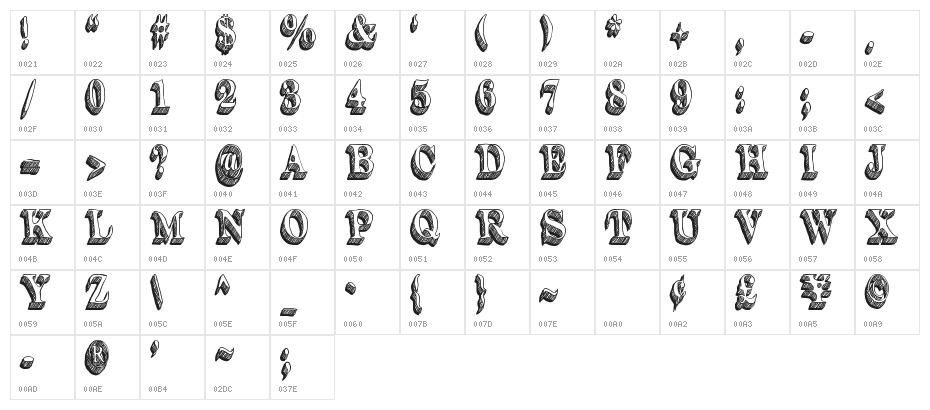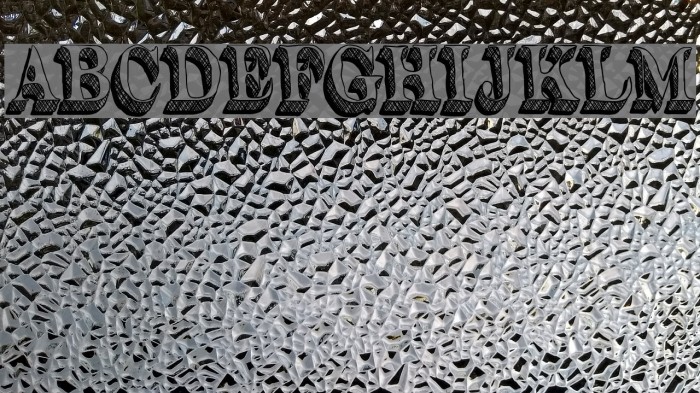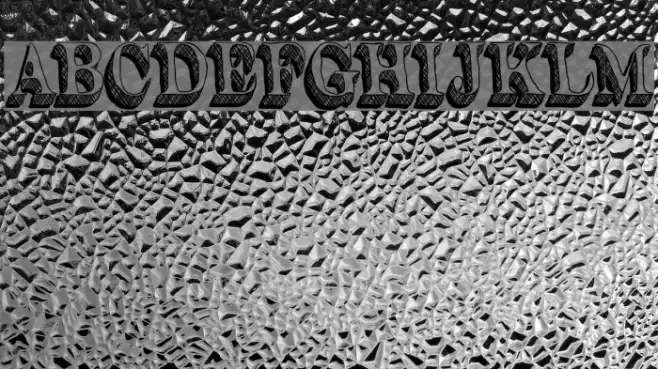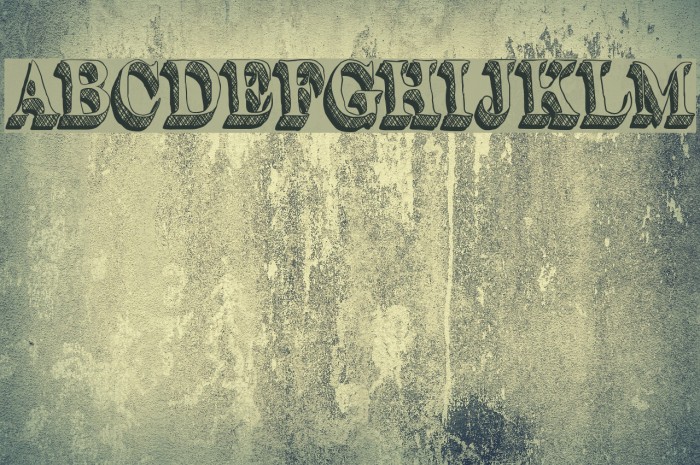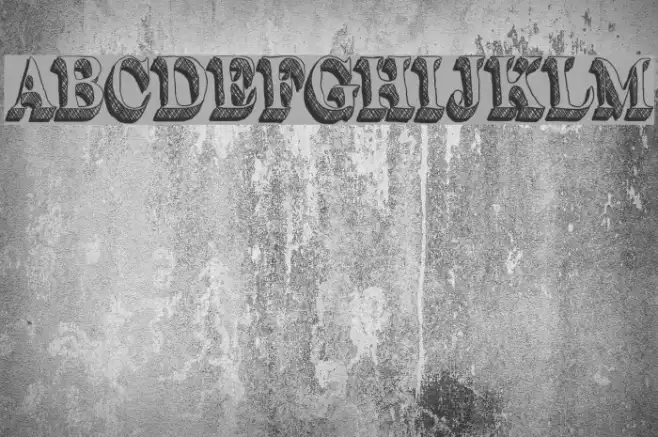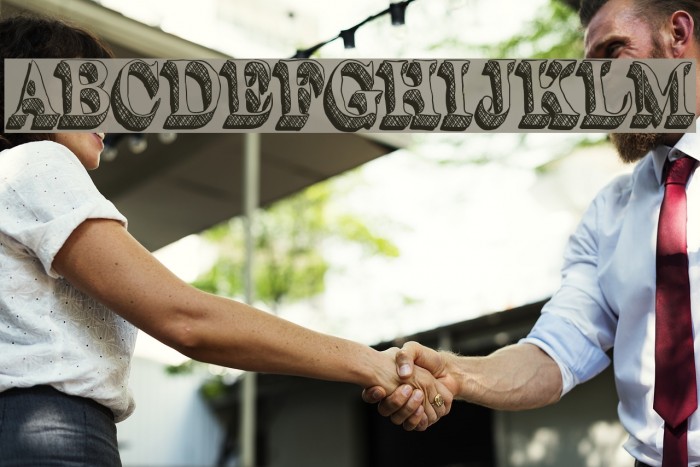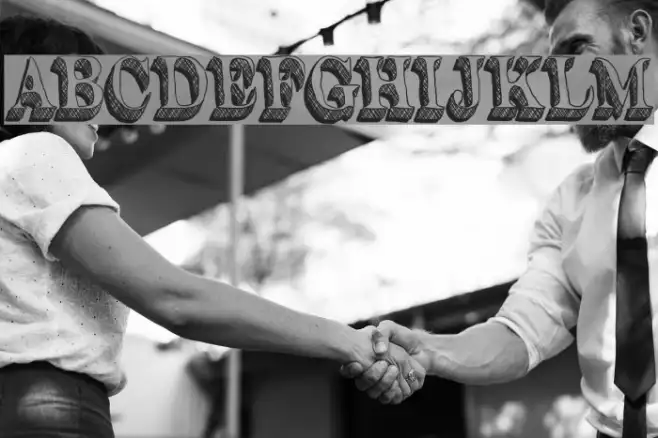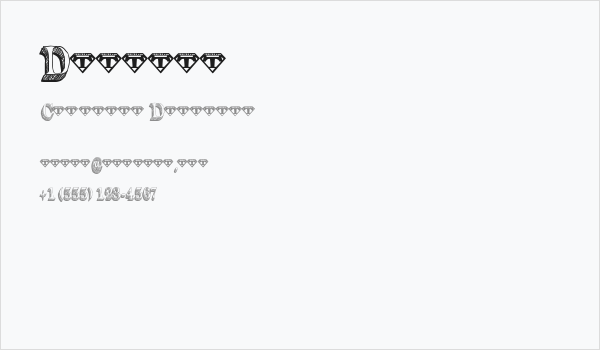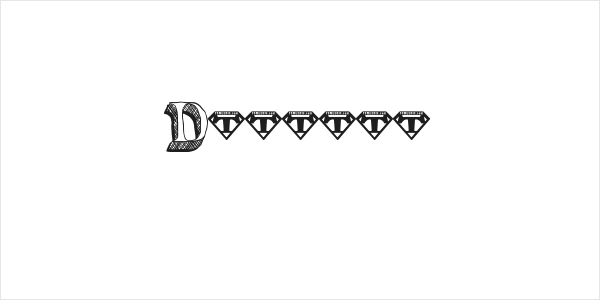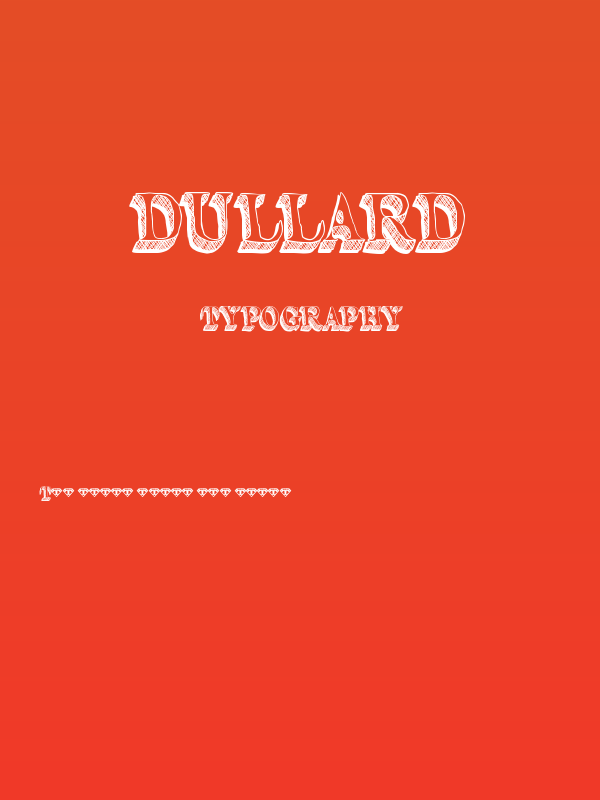
Dullard Font
Dullard Description
This font features a bold, three-dimensional style with a hatched texture that gives it a unique, hand-drawn appearance. The uppercase letters are particularly striking, with thick strokes and a shadow effect that adds depth. The numerals and special characters maintain this bold, textured look, making them stand out. The font's playful and decorative nature makes it ideal for eye-catching designs. Its intricate detailing and bold presence suggest a sense of creativity and fun, perfect for projects that require a standout visual element.
| Proposed Projects | Ideal for posters, logos, headlines, and any design needing a bold, artistic touch. |